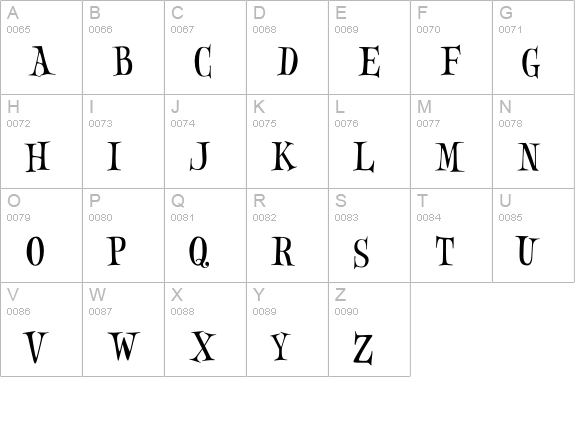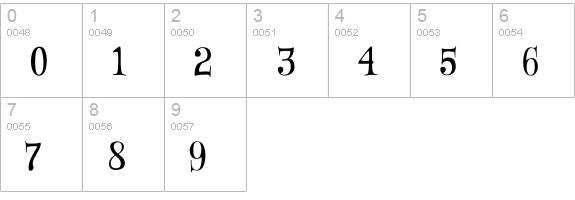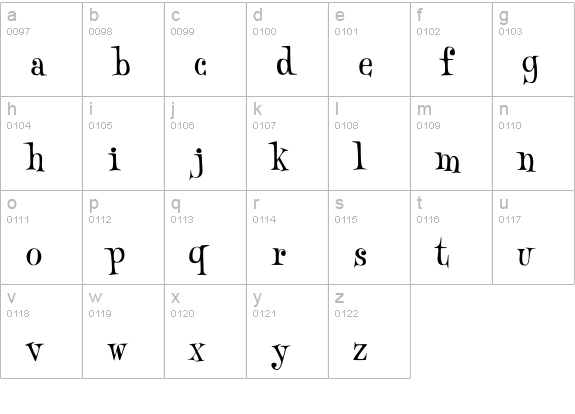
SawdustMarionette Font Details
SawdustMarionette is a captivating and versatile font that exudes a unique blend of charm and playfulness. This font is designed to add a touch of whimsy and creativity to any project, whether it be a logo, branding materials, or a captivating headline. With its carefully crafted letterforms and intricate details, SawdustMarionette captures the essence of hand-drawn artistry. Each character is meticulously hand-drawn, giving it a distinct and organic feel that is both warm and inviting. The irregular shapes and playful curves of this font make it perfect for adding a touch of personality to any design. But what truly sets SawdustMarionette apart is its freedom. This font is freely available to download at FontsMarket.com, allowing designers, artists, and creatives alike to bring their visions to life without any restrictions. Whether you're working on a personal project or a commercial venture, SawdustMarionette gives you the freedom to create without limitations. The versatility of SawdustMarionette knows no bounds. It effortlessly adapts to a variety of design aesthetics, making it suitable for a wide range of applications. Whether you're aiming for a playful and whimsical look or a more sophisticated and elegant feel, SawdustMarionette has got you covered. The attention to detail in SawdustMarionette is truly remarkable. Each character is carefully crafted to ensure legibility and readability, even at smaller sizes. This makes it a perfect choice for body text, as well as larger headlines that demand attention. SawdustMarionette is a font that sparks creativity and allows designers to push boundaries. It invites experimentation and encourages bold choices, making it a must-have addition to any font library. So why wait? Download SawdustMarionette for free at FontsMarket.com and unleash your imagination today.